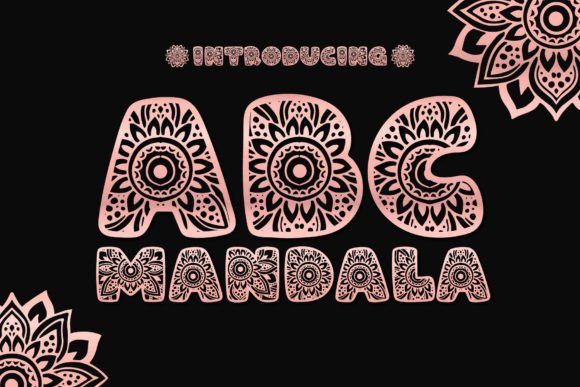
Introducing ABC Mandala, the best font for cut-out letters that will take your creative projects to new heights! Crafted with precision and elegance by Fox7, this exquisitely designed decorative font is the perfect choice for all your crafting needs.
Whether you're working on greeting cards, wedding invitations, T-shirt designs, mugs, or even KDP projects, ABC Mandala will add a touch of beauty and sophistication to every piece. Its intricate details and captivating style will instantly make your creations stand out from the crowd.
With ABC Mandala, you have the power to transform ordinary words into extraordinary works of art. Each letter is carefully crafted to create a mesmerizing effect that will captivate your audience. The decorative elements of this font add a unique flair, making it the ideal choice for anyone looking to add a touch of elegance and charm to their designs.
But what truly sets ABC Mandala apart is its versatility. Not only does it excel in the world of crafting, but it also lends itself to a wide range of creative projects. Whether you're a professional graphic designer or an aspiring artist, this font is a must-have in your toolbox. From digital illustrations to print media, ABC Mandala will elevate your work to new heights.
Imagine the impact of using ABC Mandala in your next project. The intricate details and artistic flourishes will create a sense of awe and wonder, leaving a lasting impression on your audience. Every stroke of this font exudes creativity and imagination, making it the perfect choice for those who want to make a statement.
But don't just take our word for it. Try ABC Mandala for yourself and experience the magic firsthand. Watch as your designs come to life with a touch of elegance and sophistication. Let this font be the secret weapon that sets you apart from the competition and captures the hearts of your audience.
In conclusion, ABC Mandala is not just a font, it's a work of art. Its decorative elements, intricate details, and captivating style make it the best font for cut-out letters. Add a touch of beauty and sophistication to your creative ideas by incorporating this font into your projects. Download ABC Mandala today and let your imagination run wild!